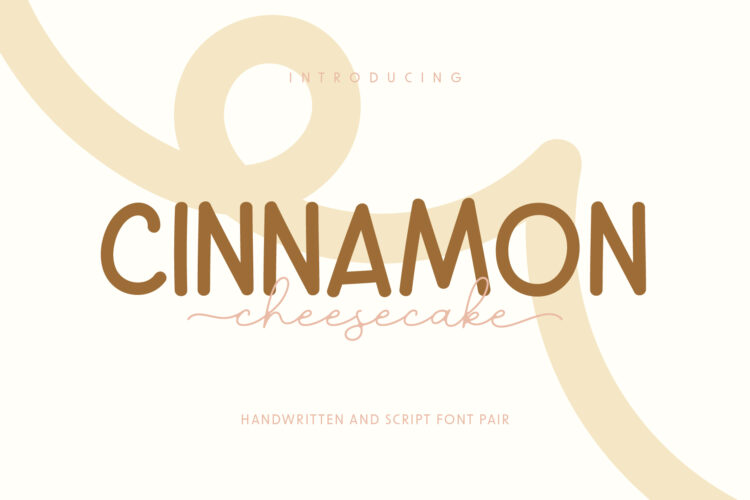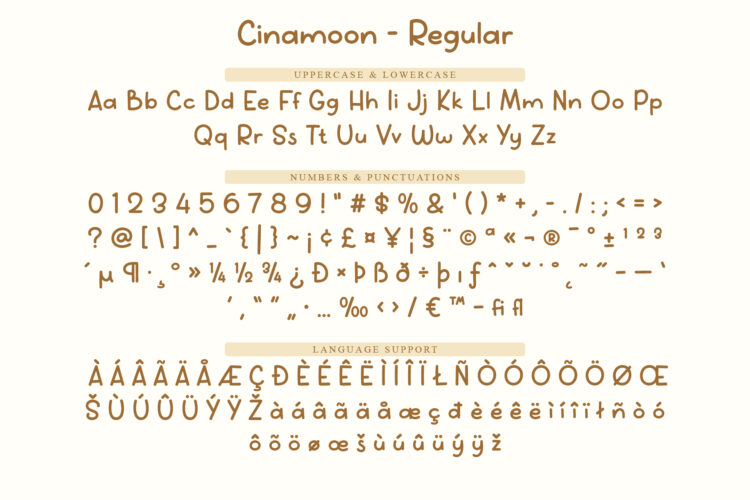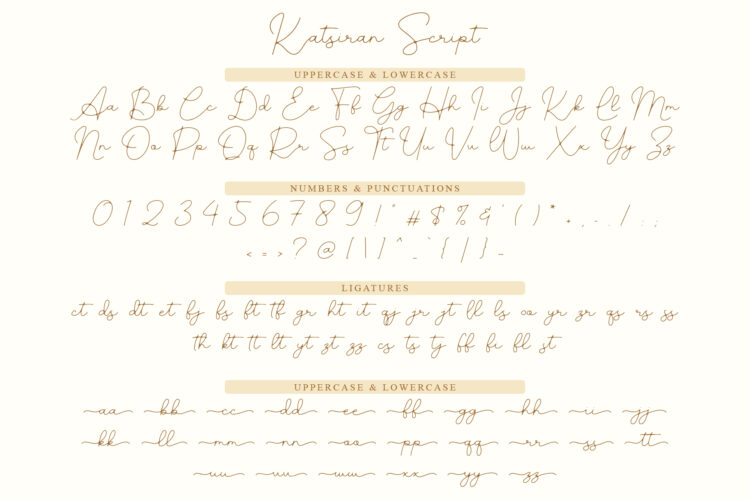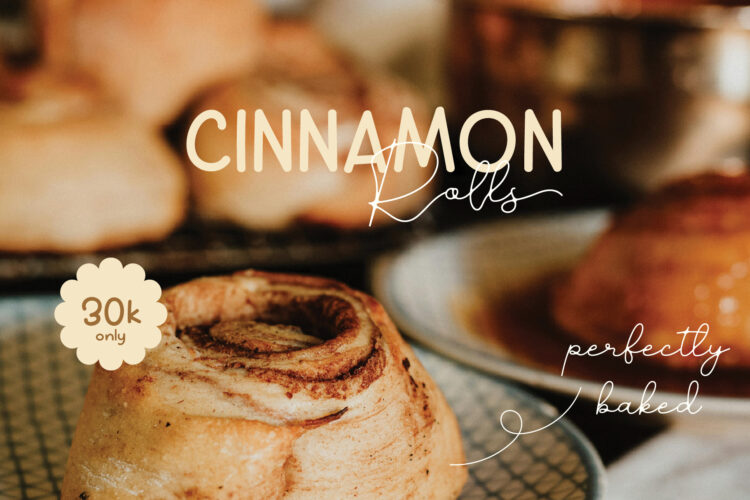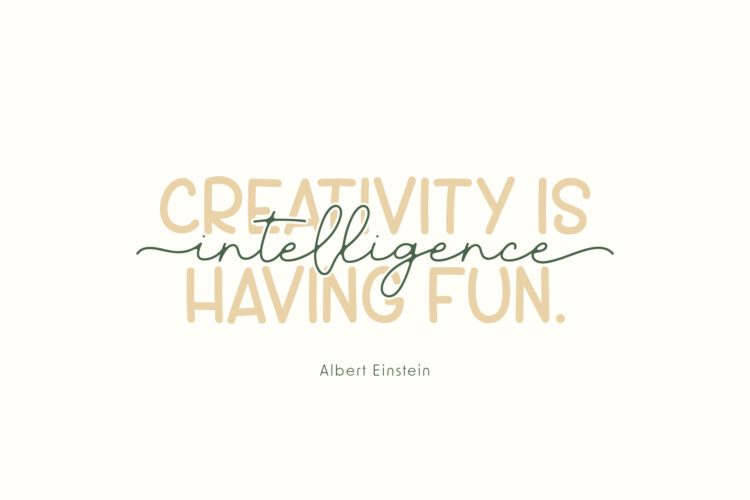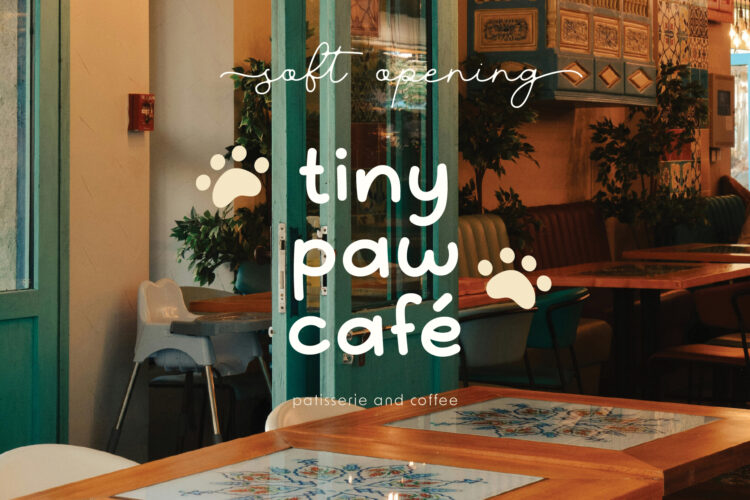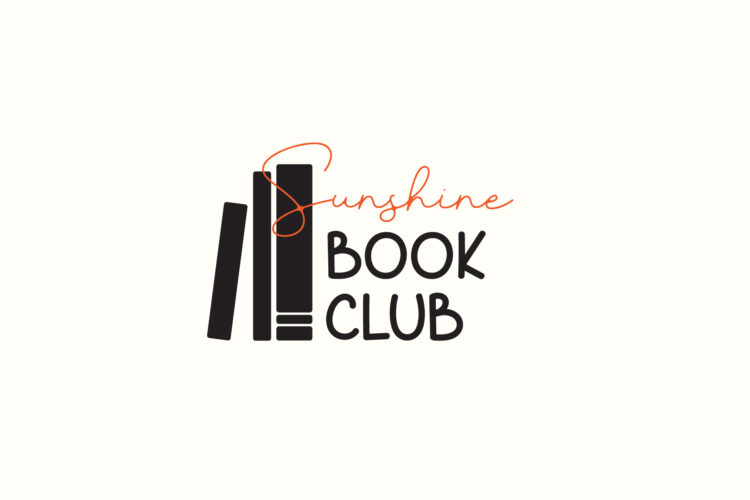
Cinamoon - Regular
Cinamoon - Italic
Katsiran
Cinnamon Cheesecake is a fun and playful font pair. It mixes a friendly handwriting font with an elegant monoline script. This combination makes your designs cheerful yet stylish.
Cinamoon, the handwriting font, is fun, friendly, and handcrafted. It includes a full alphabet, numbers, basic symbols, and a matching italic style. Cinamoon is perfect for headlines, playful branding, packaging, invitations, and any design that needs a personal touch.
Katsiran, the script font, is elegant and flowing. It has a full alphabet, numbers, basic symbols, ligatures, and alternate lowercase letters for stylish beginnings and endings. Katsiran adds a soft, romantic accent. Use it for logos, signatures, wedding details, and feminine branding.
Cinnamon Cheesecake | Font Duo